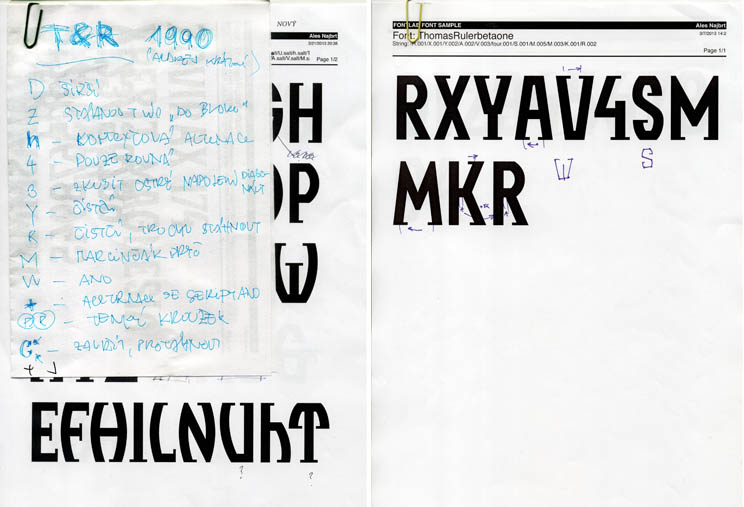
Thomas & Ruhller
Aleš Najbrt
A typeface designed by Aleš Najbrt is underway. Originally designed in 1990, the new updated version will have plenty of new alternative glyphs.